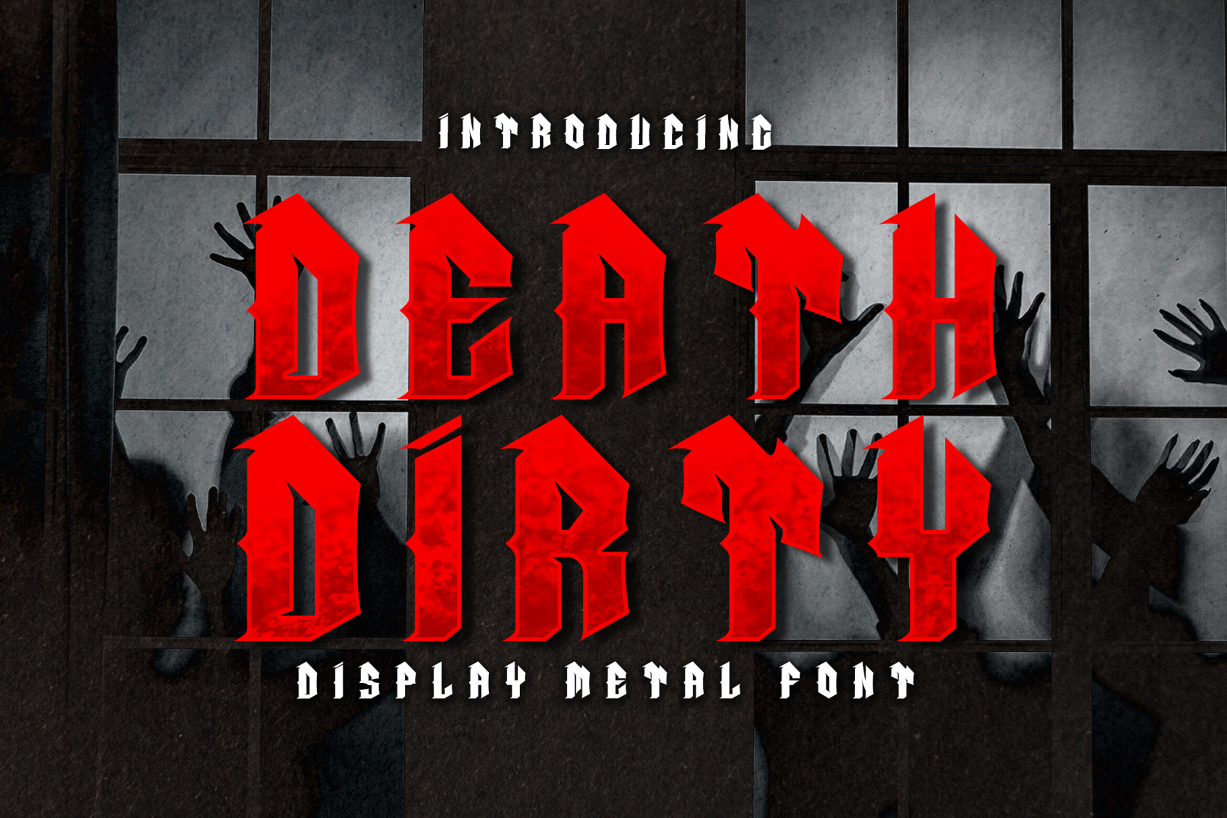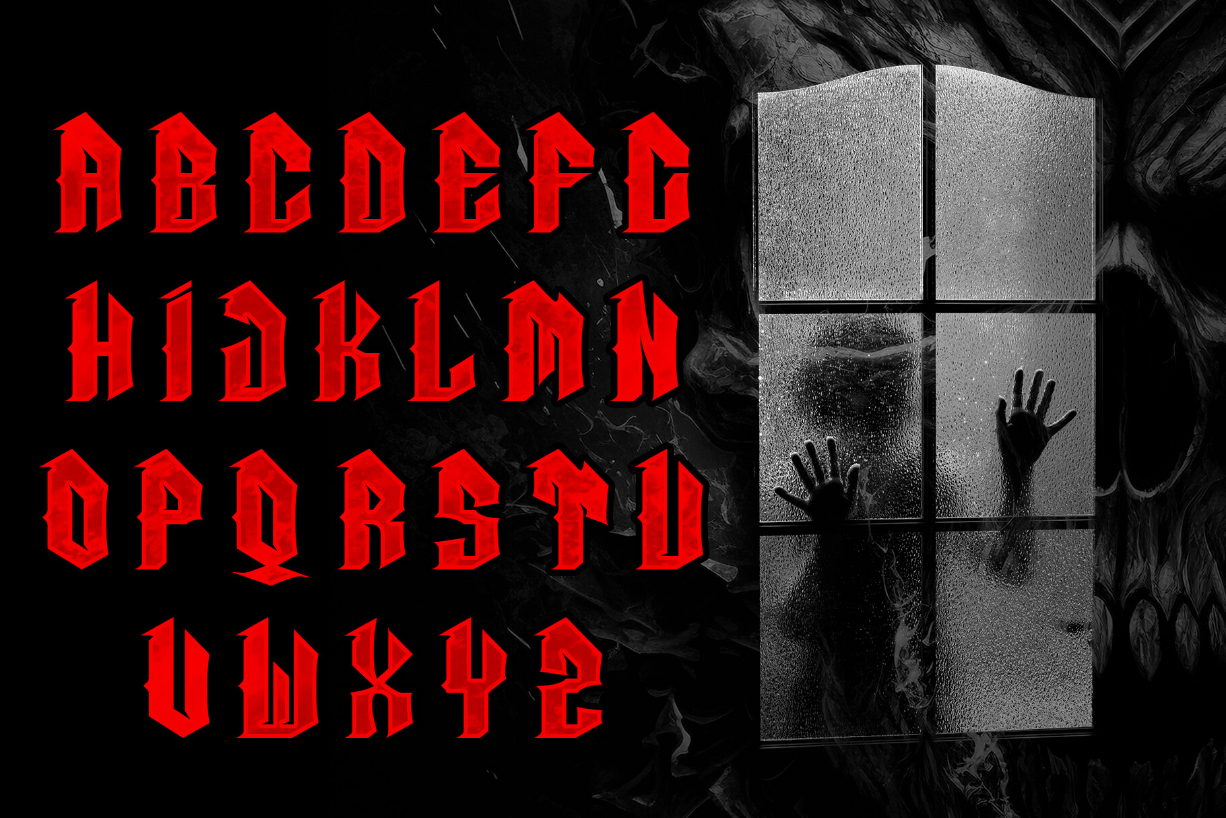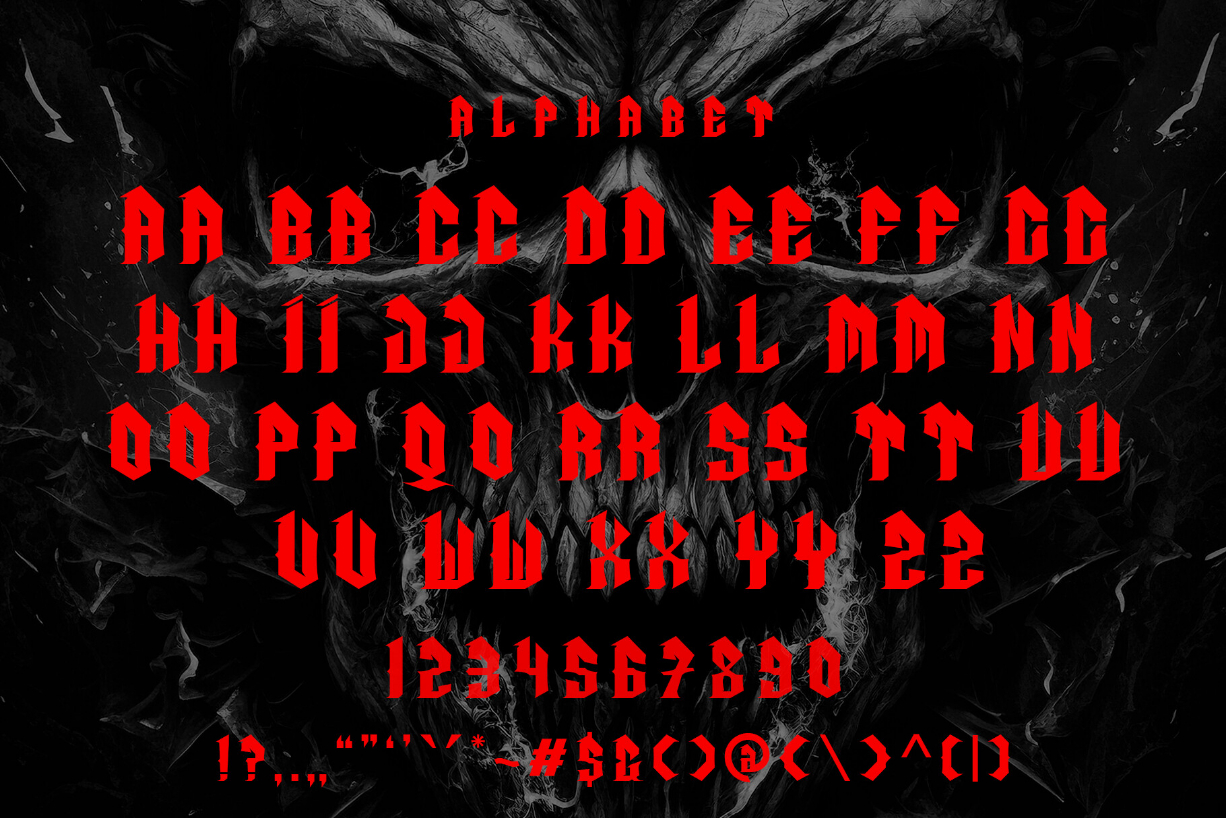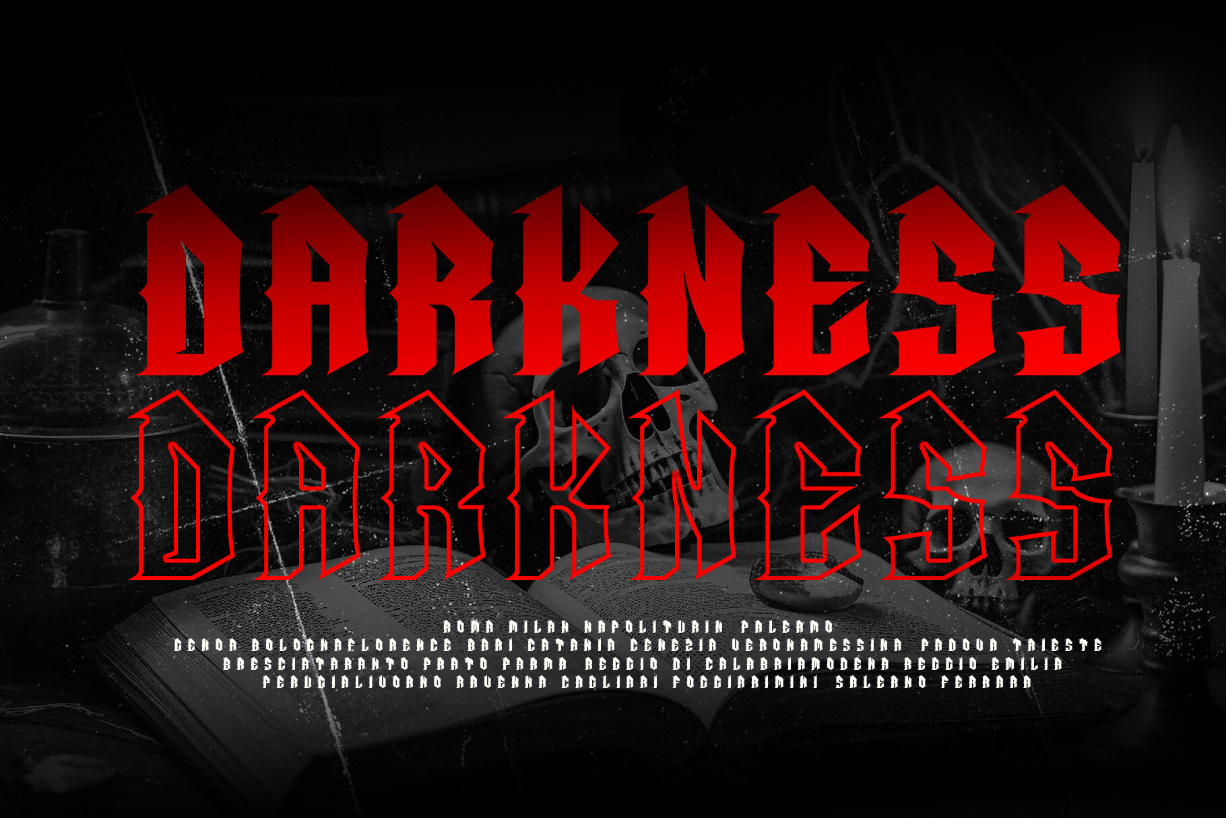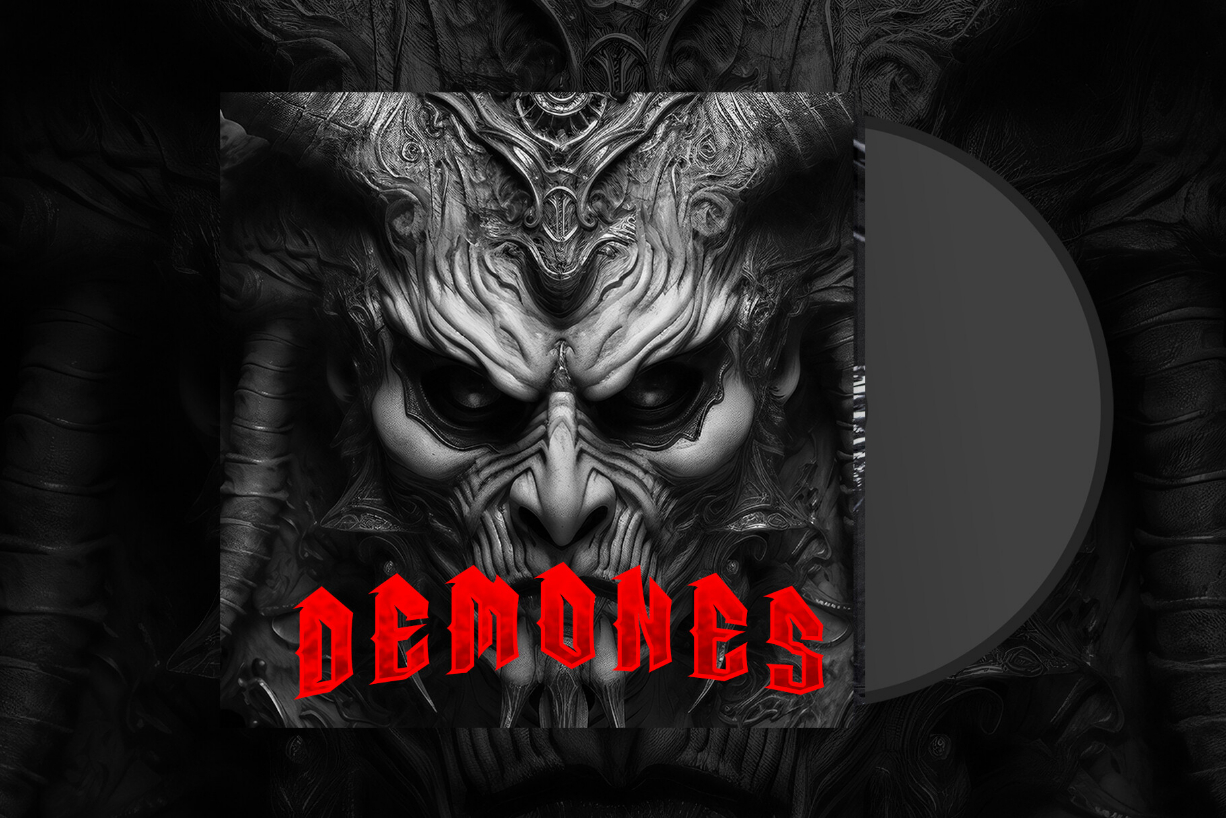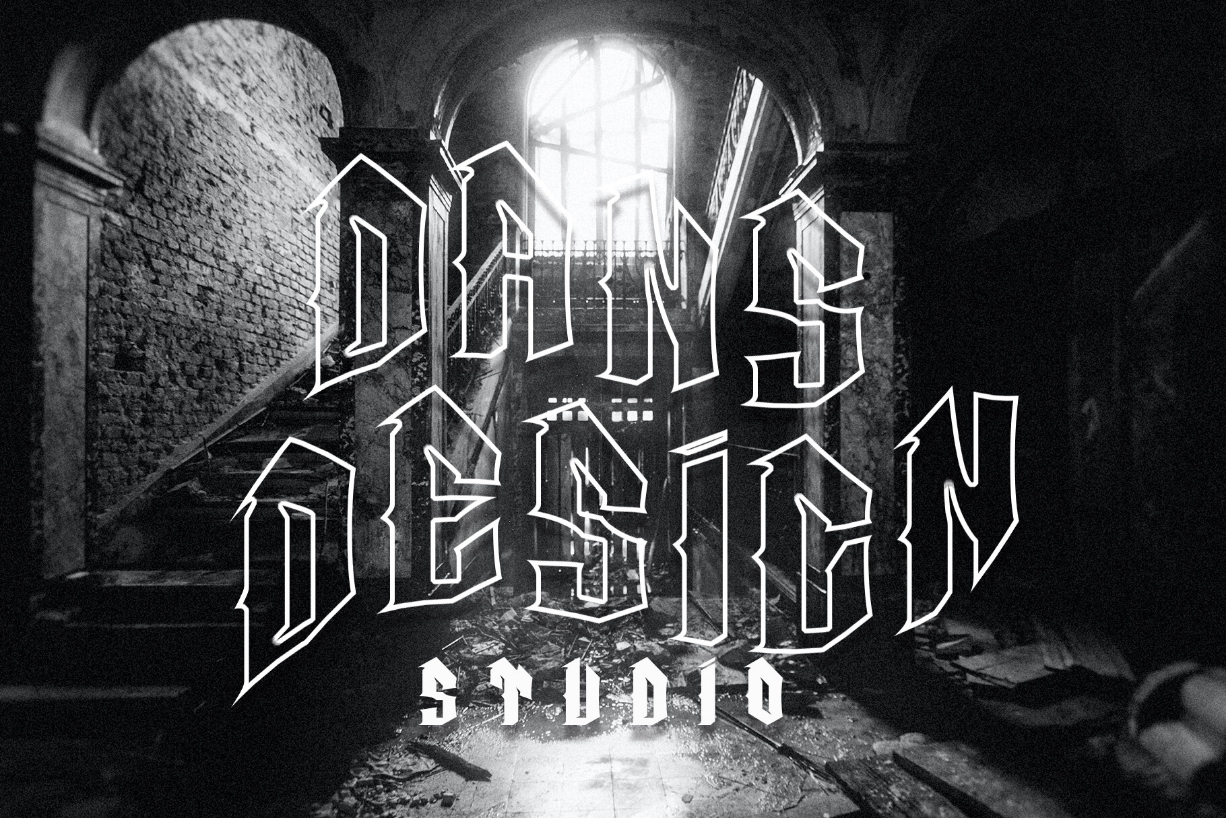
Death Dirty Font
About Death Dirty Font
Death Dirty is a bold and thick lettered blackletter font. Add it confidently to your projects, and you will love the results.